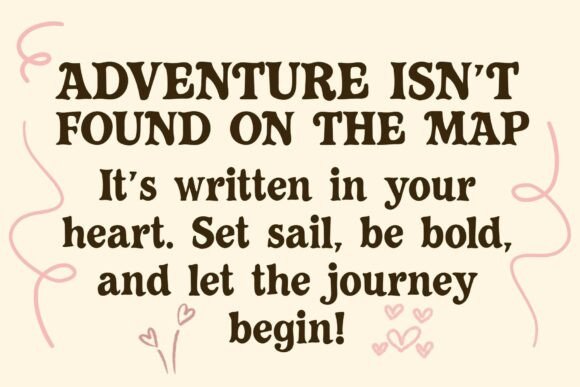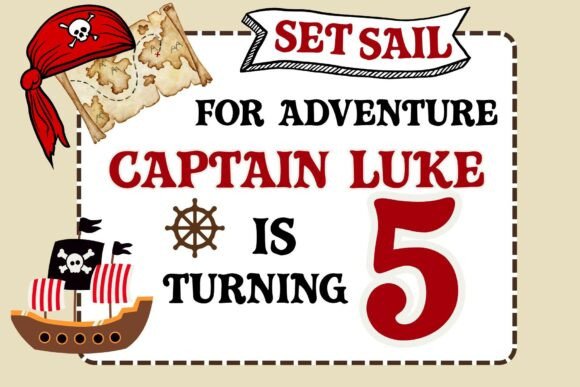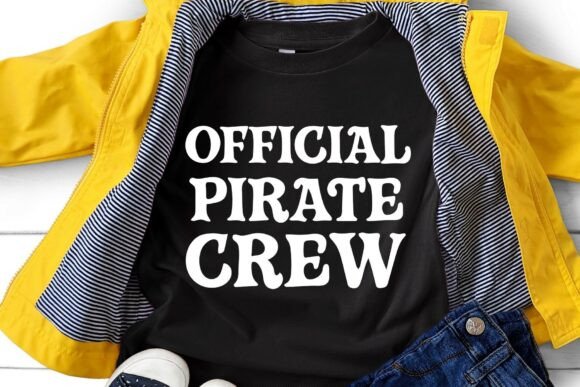
Introduction to Pirate Groovy Font
Pirate Groovy is a playful, retro-inspired display font with a swashbuckling twist.
With its bold curves and adventurous character, it’s perfect for pirate-themed parties, treasure hunt invitations, Halloween crafts, classroom decor, kids’ apparel, and more .
Why Choose Pirate Groovy Font?
Pirate Groovy Font offers exceptional quality and versatility, making it a valuable addition to your design toolkit. Whether you’re creating for personal projects or commercial use, Pirate Groovy Font delivers professional results.